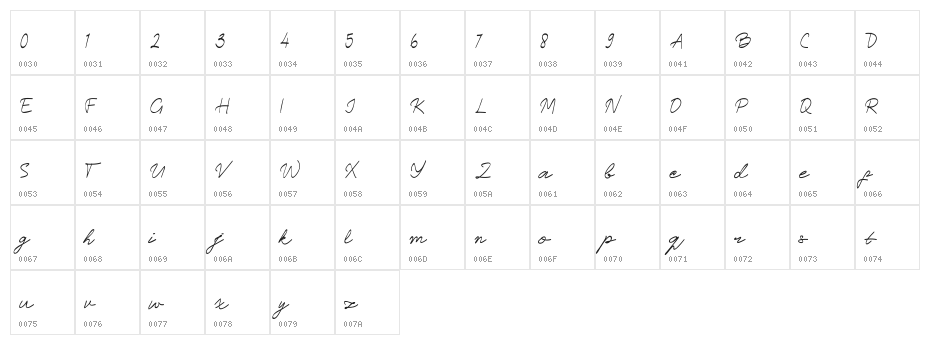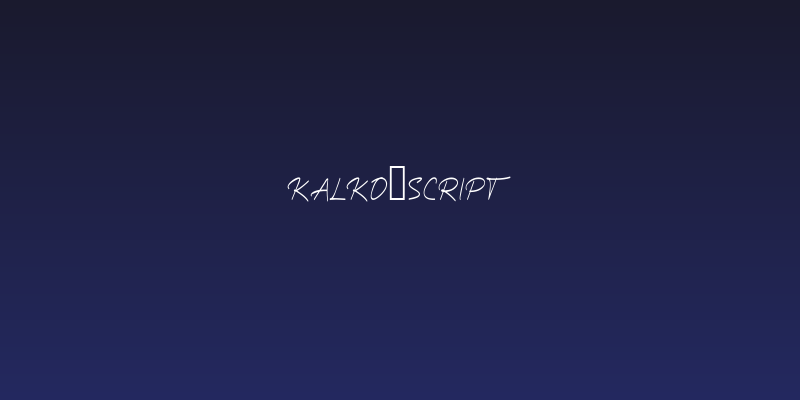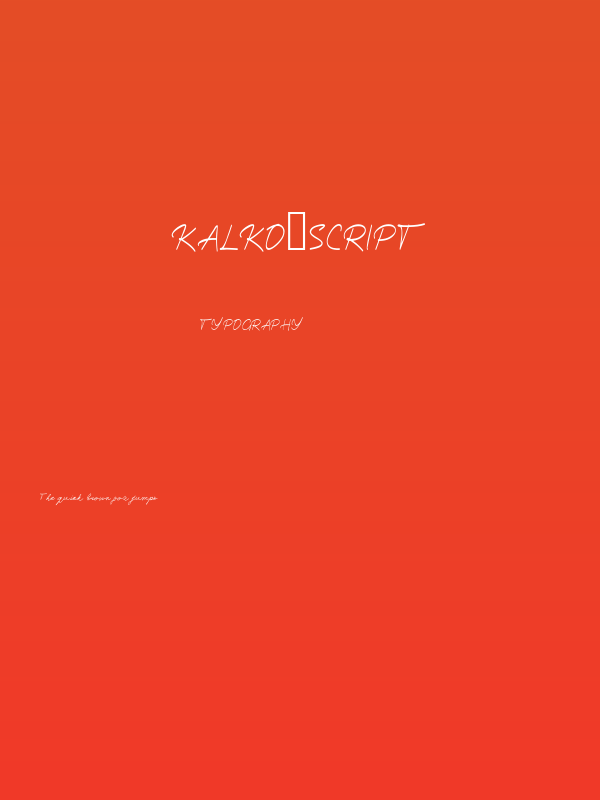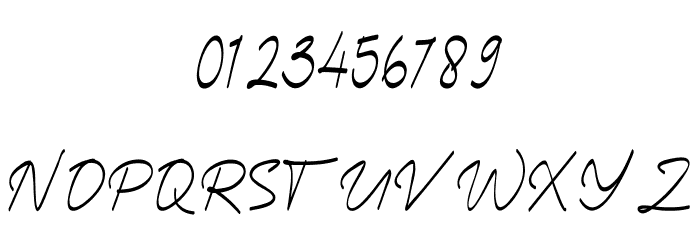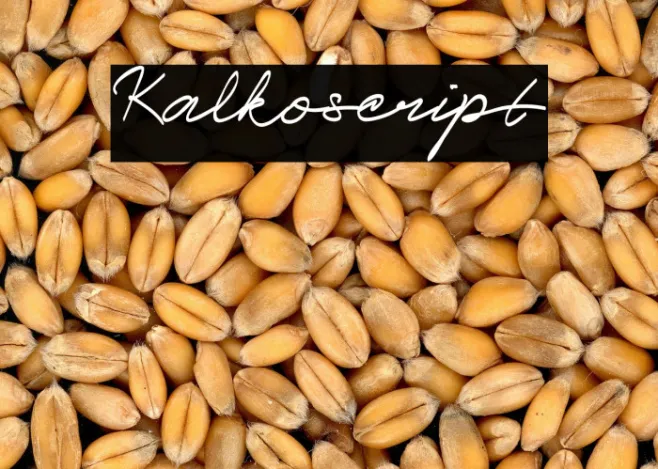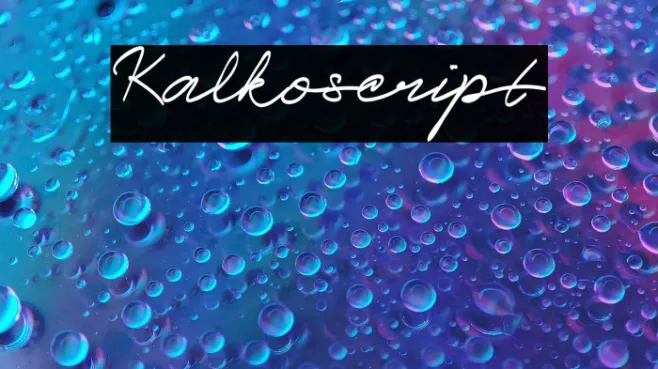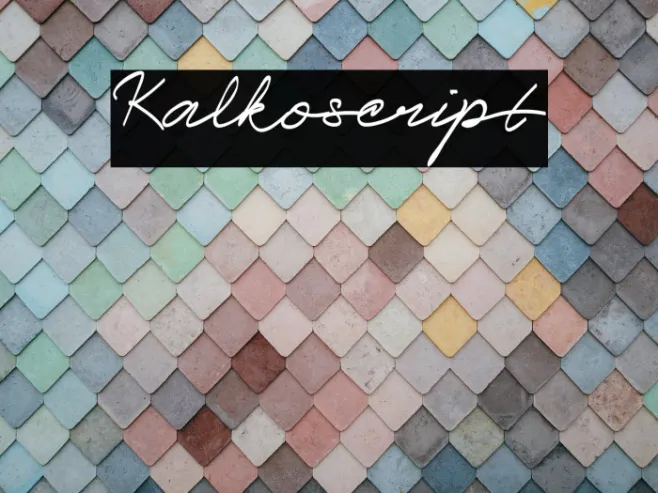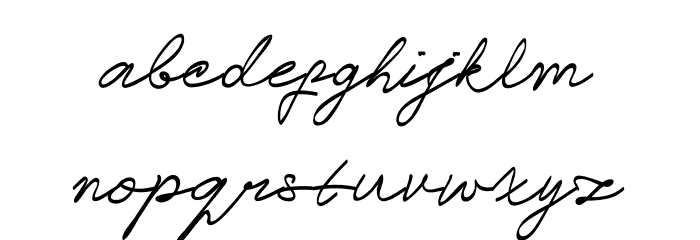
Kalko_script Font
Kalko_script Description
This font exudes a casual and elegant handwritten style, characterized by its fluid and connected letterforms. The uppercase letters maintain a consistent height, while the lowercase letters exhibit a natural flow, enhancing readability. The numerals are distinct yet harmonize well with the overall script style. The font's strokes are smooth and slightly varied in thickness, adding a touch of sophistication without compromising legibility. Its overall appearance is both approachable and refined, making it suitable for a variety of design applications.